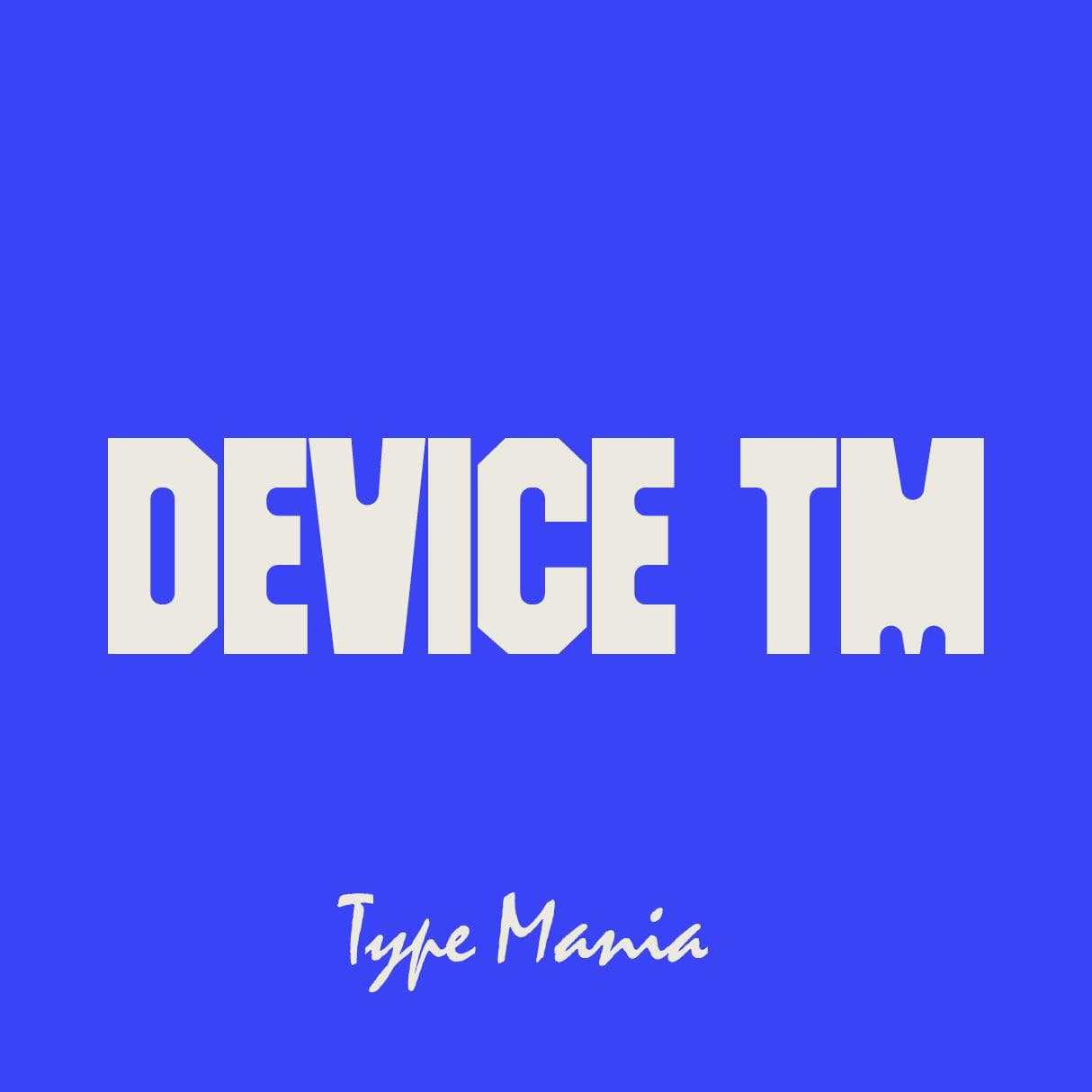
<p><strong>Device TM</strong> – unapologetically bold, fiercely quirky. With its edgy demeanor and unwavering confidence, <strong>Device TM</strong> is perfecto for any flyer, poster, t-shirt graphic; what have U. Let <strong>Device TM</strong> infuse your designs with its unconventional charm and offbeat energy, leaving a lasting impression on all who encounter it.</p> <p><strong>Zip includes</strong></p> <ul> <li>OTF file</li> <li>TTF file</li> <li>WOFF2 file</li> </ul> <p><strong>Languages</strong></p> <ul> <li>Basic Latin</li> <li>Western European</li> <li>Euro</li> <li>Central European</li> <li>Pan African Latin</li> <li>197 glyphs</li> </ul> <p><em>Graphic Design is Easy (with Type Mania)®</em></p>